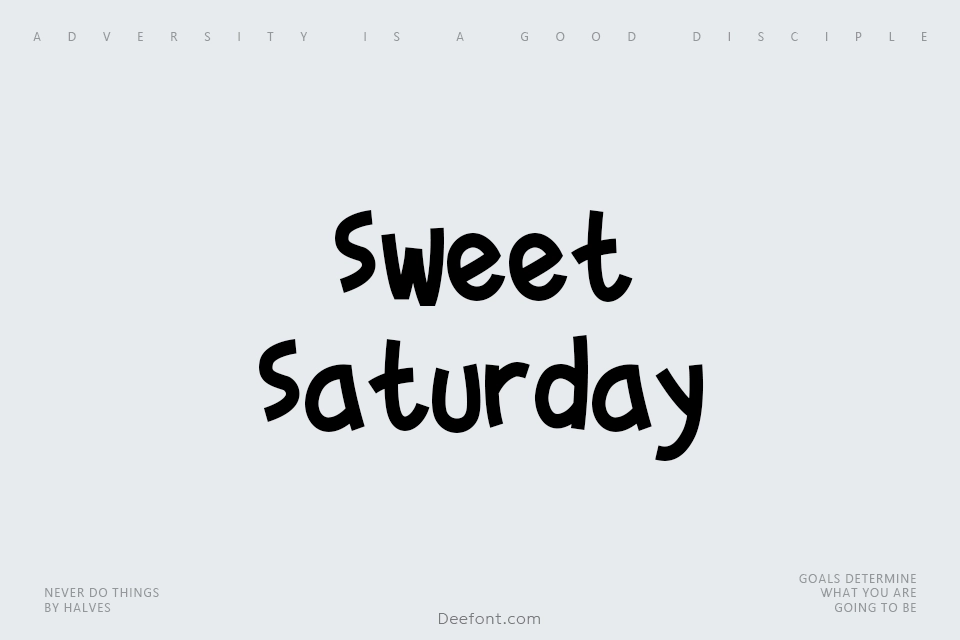
Sweet Saturday Font
Sweet Saturday is a distinctive display font designed by Display Studio, offering 232 carefully crafted characters with multilingual support. Perfect for creative projects including brand logos, invitations, greeting cards, and poster designs, this charming typeface combines playful elegance with contemporary styling. The font features smooth, rounded letterforms that deliver a friendly, approachable aesthetic suitable for modern design applications requiring distinctive visual impact and personality.